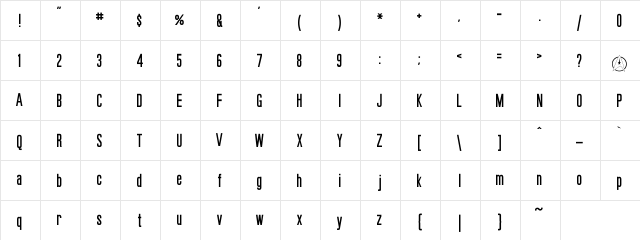
Okudagrams Regular
| Designer | Neale Davidson |
Design Context for Okudagrams Typeface
Okudagrams is a composed and adaptable typeface that performs quietly and consistently across a wide range of design contexts.